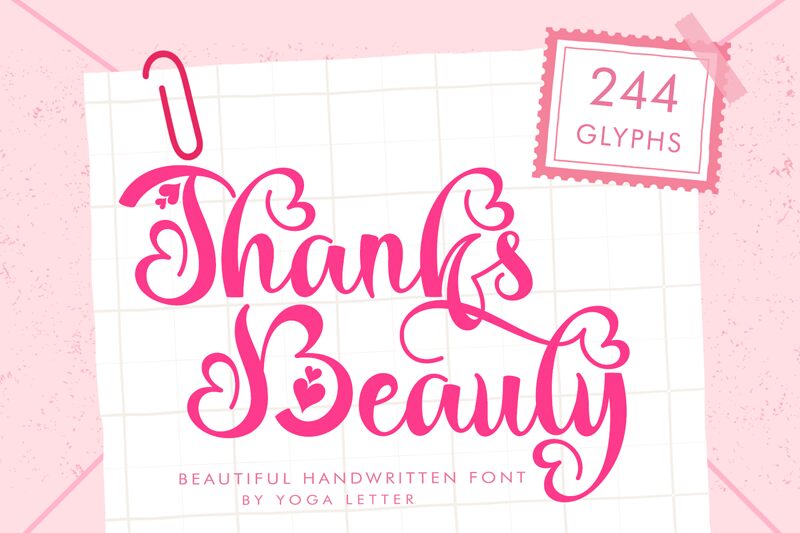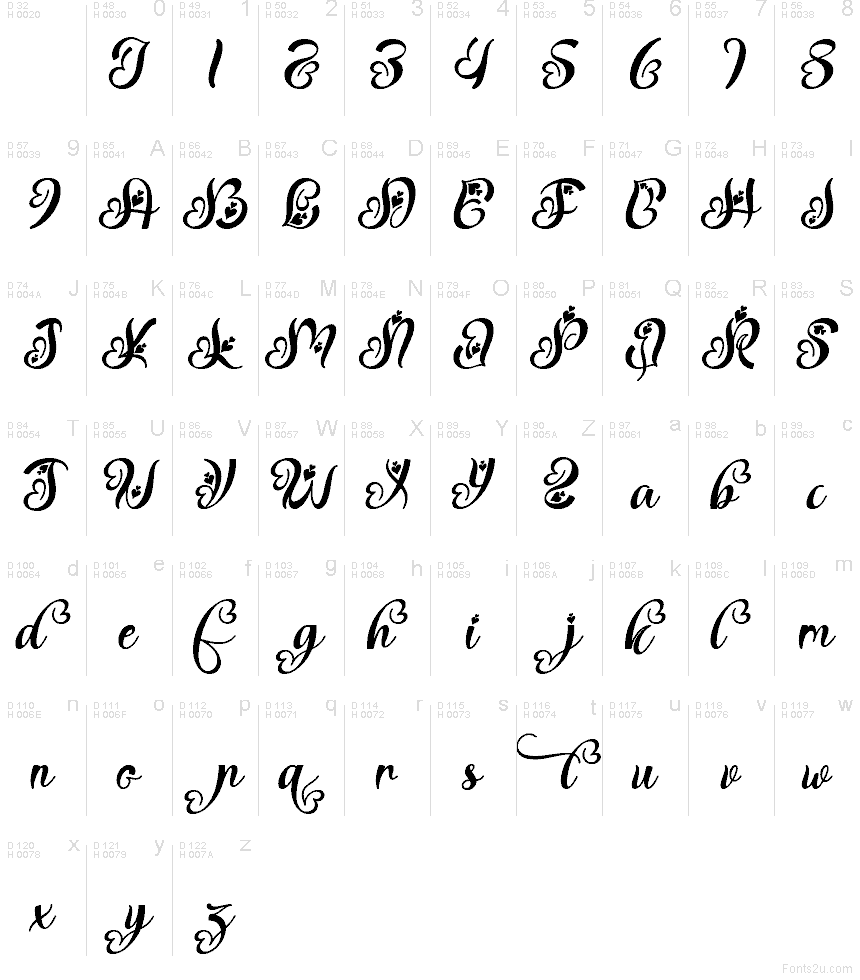
Thanks Beauty Italic Demo Italic
Thanks Beauty Italic font by Yoga Letter is a free valentine calligraphy typeface that looks like it was written with a generous, inky brush. Its looping strokes, heart-shaped curls, and sweeping flourishes give every word a soft, romantic pull, as if it’s part love note, part signature. The bold texture keeps it readable while still feeling indulgent and decorative, so even a single word can carry a lot of emotion.
Using Thanks Beauty Italic, phrases feel personal and affectionate, making it a natural fit for wedding invitations, Valentine’s cards, love quotes on social media, beauty or chocolate packaging, and boutique logos. This free font shines when set large, where its curves and hearts have room to breathe; pair it with a clean sans serif for body text to keep layouts balanced and easy to read.